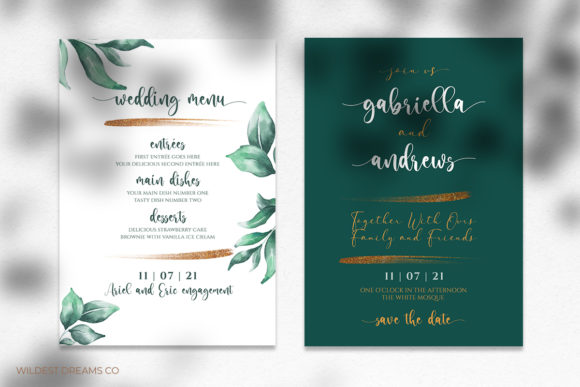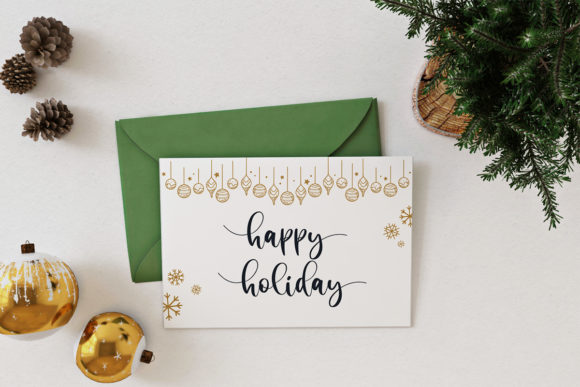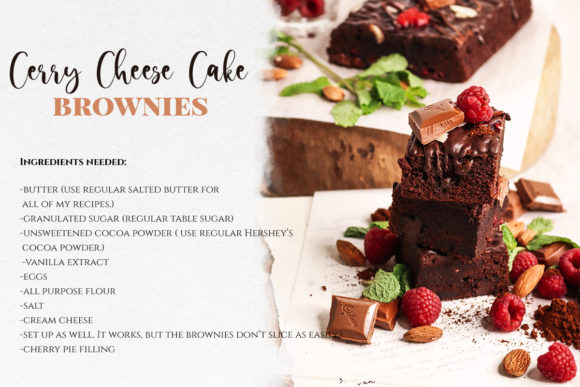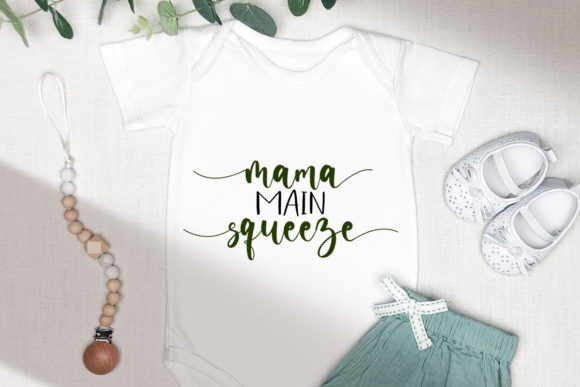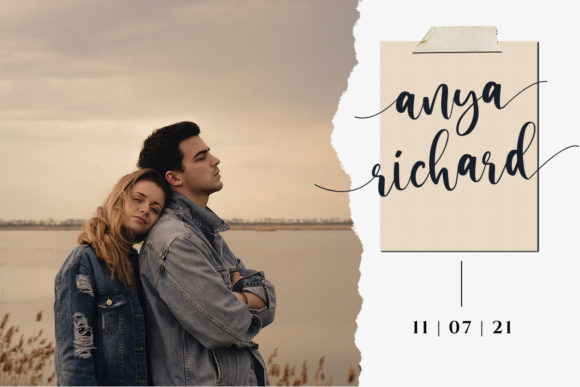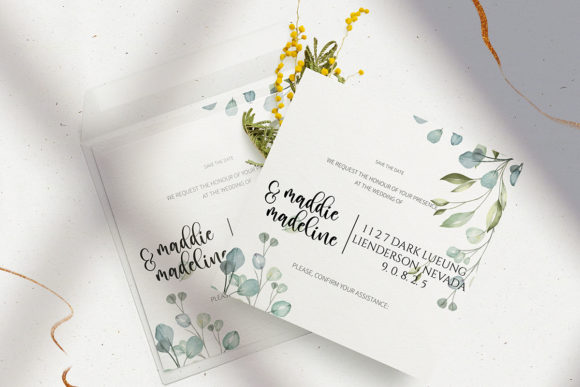
Carnation Font: The Perfect Addition to Your Design Projects
Carnation is a beautiful duo styled handwritten font that is sure to add a touch of charm to any design project. With its elegant and cursive strokes, this font is perfect for designers and crafters looking to create visually appealing and unique designs. In this article, we’ll take a closer look at the Carnation font, its features, and how you can use it to elevate your design projects.
What is Carnation Font?
Carnation is a duo styled handwritten font that features two distinct styles, making it versatile and perfect for a wide range of design projects. The font is designed to have a charming and elegant appearance, making it ideal for use in wedding invitations, branding, packaging, and more.
Key Features of Carnation Font
- Duo styled: Carnation font comes with two distinct styles, allowing you to mix and match to create a unique look.
- Handwritten: The font features elegant and cursive strokes, giving it a personal and charming touch.
- Charming appearance: The font is designed to add a touch of elegance and sophistication to any design project.
- Versatile: Carnation font can be used for a wide range of design projects, from wedding invitations to branding and packaging.
How to Use Carnation Font in Your Design Projects
Carnation font is perfect for designers and crafters looking to add a touch of elegance and charm to their design projects. Here are a few ideas on how to use Carnation font:
- Wedding invitations: Use Carnation font to create beautiful and elegant wedding invitations that set the tone for the big day.
- Branding: Use Carnation font to create a unique and memorable brand identity that stands out from the crowd.
- Packaging: Use Carnation font to add a touch of elegance and sophistication to your product packaging.
- Social media graphics: Use Carnation font to create visually appealing social media graphics that grab attention.
Tips for Using Carnation Font Effectively
Here are a few tips on how to use Carnation font effectively in your design projects:
- Pair with a simple font: Pair Carnation font with a simple font to create a beautiful contrast.
- Use it sparingly: Use Carnation font sparingly to create a focal point in your design.
- Experiment with colors: Experiment with different colors to find the perfect combination that works with Carnation font.
Carnation font is a beautiful duo styled handwritten font that is perfect for designers and crafters looking to add a touch of charm and elegance to their design projects. With its versatile and charming appearance, Carnation font is sure to become a staple in your font collection. So why wait? Download Carnation font today and start creating stunning designs that leave a lasting impression!
- Is Carnation font suitable for body text? Carnation font is best used for headings and titles, but can be used for body text in certain design projects.